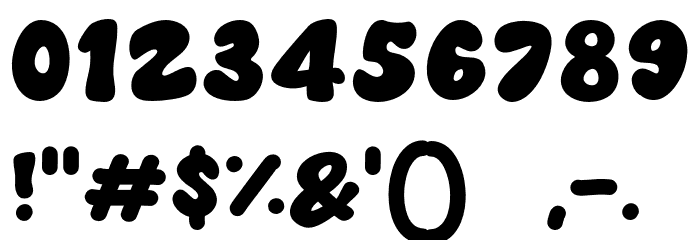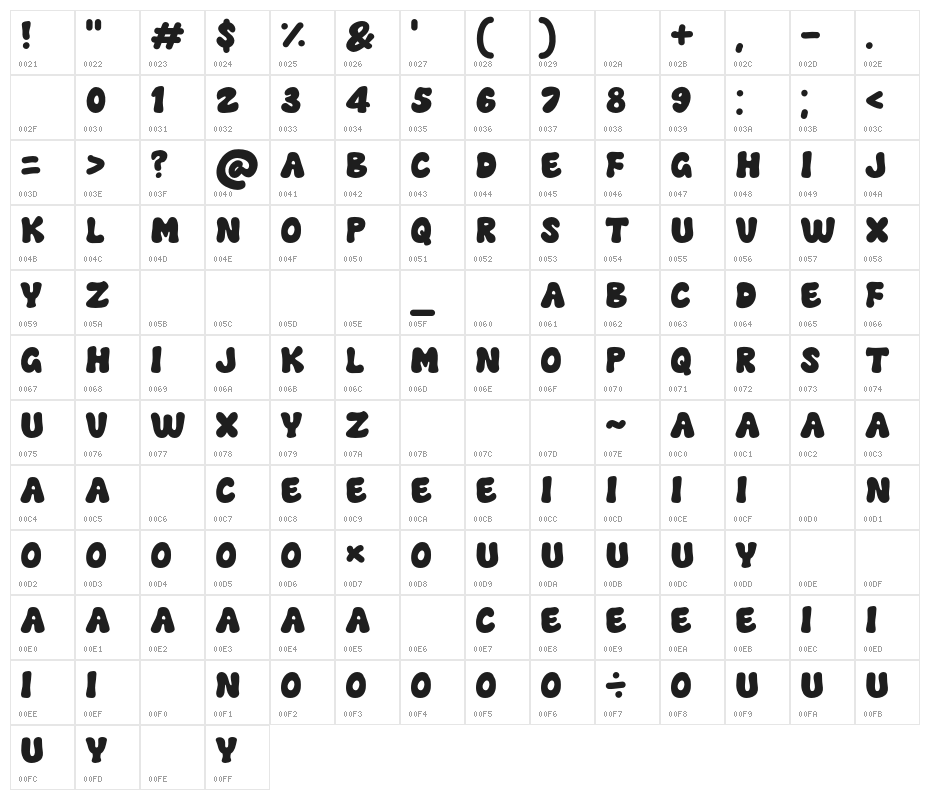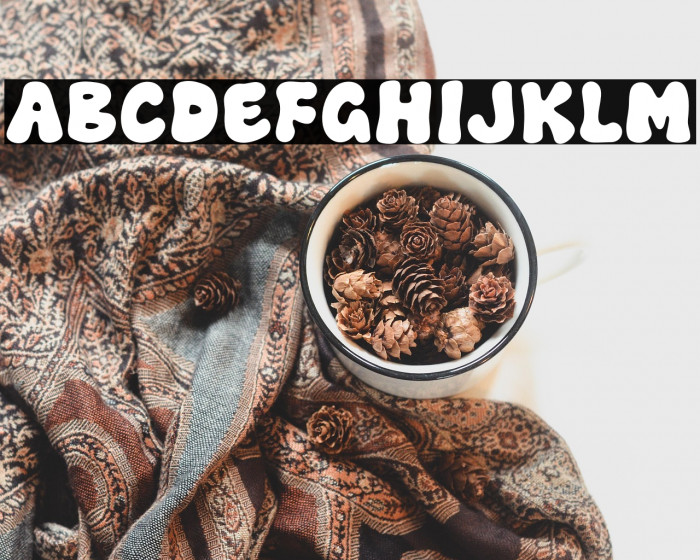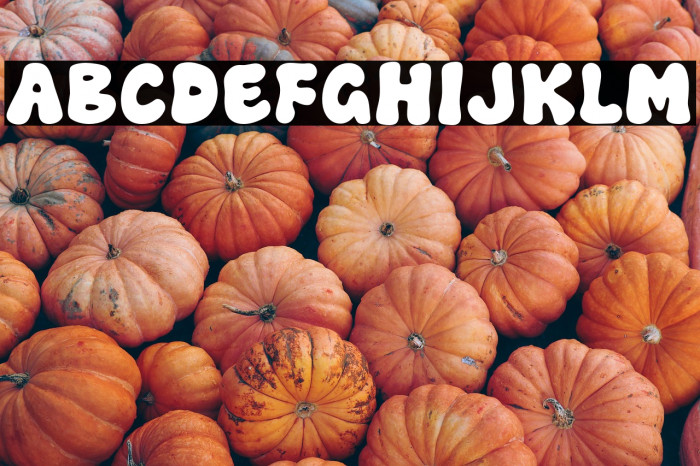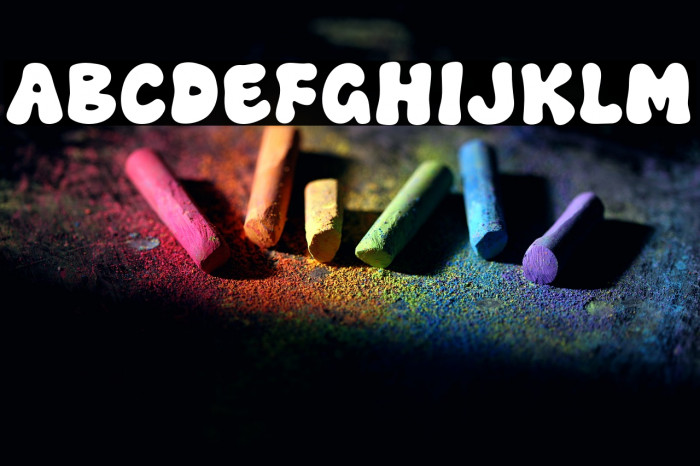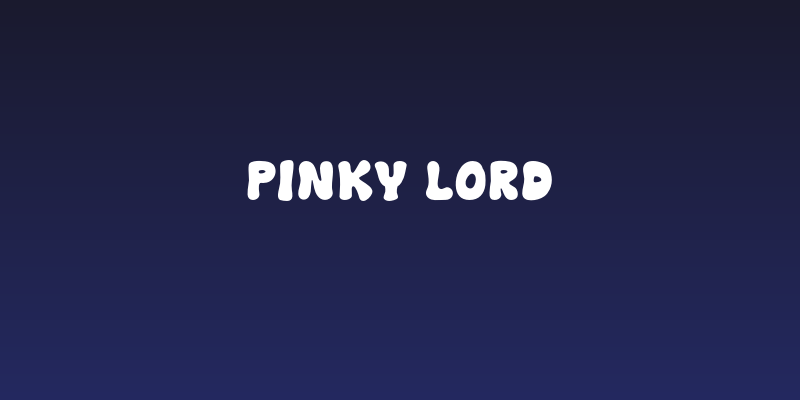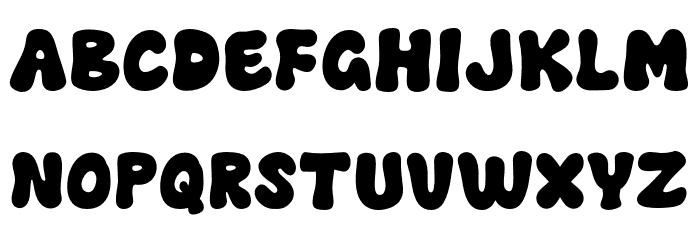
Pinky Lord Font
Pinky Lord Description
This playful and bold font features rounded, bubble-like characters that exude a sense of fun and whimsy. The thick, uniform strokes give it a strong presence, making it ideal for eye-catching designs. Each letter and number is crafted with a consistent weight, contributing to its cohesive appearance. The font's rounded edges and smooth curves create a friendly and approachable feel, perfect for projects that aim to convey warmth and creativity. The special characters maintain the same bubbly style, ensuring a harmonious look across all text elements.
| Overall Style | Playful, Fun |